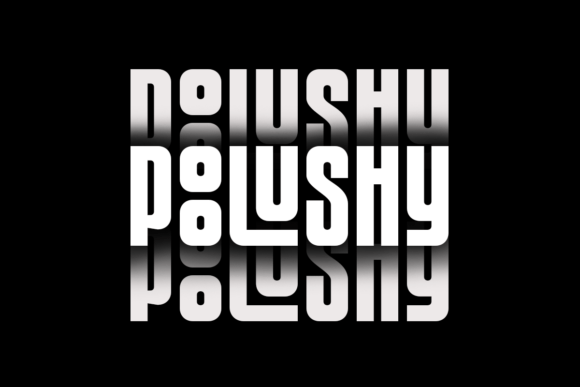
Prepare to be captivated by the dazzling aura of "Poolushy," the condensed sans-serif font that ignites boldness and sophistication in the realm of typography. Designed with an unwavering commitment to making your words shine, "Poolushy" rises tall and robust, casting an aura of grandeur upon your posters and headlines that will leave an indelible mark on your audience's minds.
As you explore the depths of "Poolushy," you will be mesmerized by its striking boldness and towering presence. Its tall stature commands attention, propelling your message to the forefront and leaving a lasting impression that reverberates within the hearts and minds of your readers. Whether you're crafting posters that demand attention, advertisements that captivate audiences, or web designs that exude elegance, "Poolushy" is your steadfast companion, guiding you towards typographic excellence.
The condensed nature of "Poolushy" is a testament to its versatility, allowing you to maximize space utilization without sacrificing readability. This remarkable font thrives in diverse design contexts, effortlessly adapting to branding projects, editorial layouts, and the ever-evolving world of web design. With "Poolushy" at your disposal, your creations will transcend boundaries, leaving a trail of awe-inspiring elegance in their wake.
Experience the harmonious fusion of grace and strength that "Poolushy" embodies. Its meticulously crafted curves and sharp angles intertwine seamlessly, forming a symphony of visual delight. Whether you seek to convey the timeless allure of tradition or the exhilarating rush of modernity, "Poolushy" effortlessly captures the essence of your vision, transforming your designs into masterpieces that transcend the ordinary.